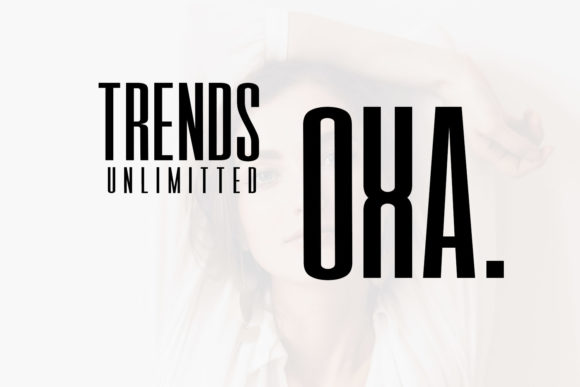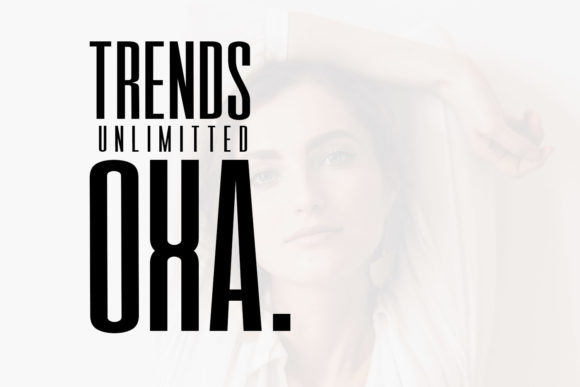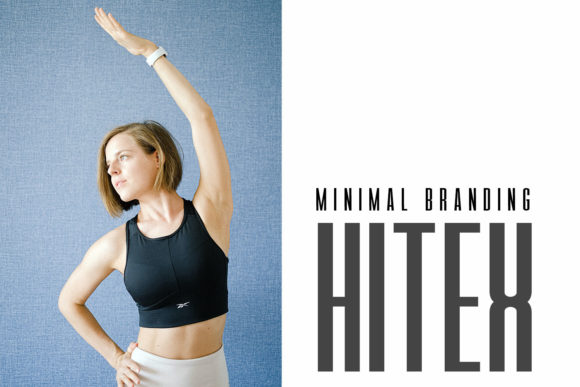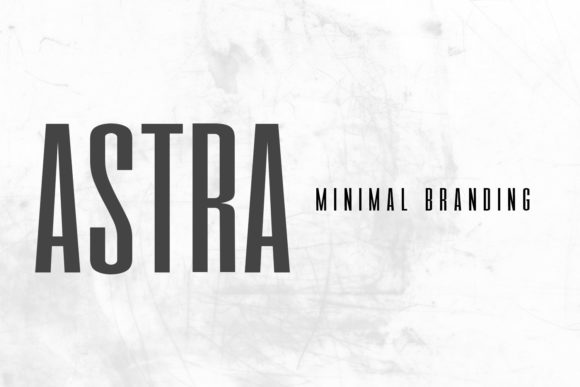
The Gagnon Font: A Simple, Modern, and Slim Display Font for Your Designs
I still remember the frustration of working on a minimalistic poster project, searching for the perfect font that would make my design pop. As a designer, I’ve been there – stuck in a sea of font options, trying to find that one that perfectly captures the essence of my project. But then, I stumbled upon the Gagnon font, and it was love at first sight! 💕
In this article, I’ll share my experience with the Gagnon font, its features, and how to make the most of it in your designs. Whether you’re a designer, crafter, or creative hobbyist, you’ll learn how to harness the power of this stunning font.
An Honest Review of Gagnon Font
What I Love About Gagnon Font ✨
• ✅ Simple, modern, and slim design that looks stunning on minimalistic posters, flyers, and prints
• ✅ Highly legible, even at small font sizes
• ✅ Versatile and can be used for a wide range of design projects, from branding to advertising
• ✅ Easy to pair with other fonts, thanks to its clean and neutral design
• ⚠️ Limited number of glyphs and stylistic alternates, which may limit its use for certain projects
• ⚠️ May not be suitable for body text or long paragraphs, as it’s designed primarily for display use
The Backstory of Gagnon Font
Gagnon font was designed by a team of typographers who wanted to create a simple, modern, and slim display font that would be perfect for minimalistic designs. Inspired by the clean lines and geometric shapes of modern architecture, Gagnon font is the result of a meticulous design process that aimed to create a font that’s both elegant and highly legible.
Font Name Gagnon Font
Author BeeType
Q: What is Gagnon font best used for?
A: Gagnon font is best used for display purposes, such as titles, headings, and short paragraphs. It’s perfect for designs that require a clean, modern, and elegant look.
Q: Can I use Gagnon font for body text?
A: While Gagnon font is highly legible, it’s not designed for body text or long paragraphs. For body text, consider using a font with more x-height and a more traditional design.